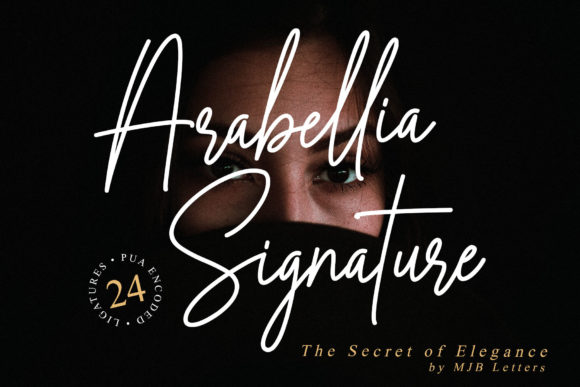
Arabellia Signature Font: Elevate Your Design with Elegance and Sophistication
In the world of typography, fonts play a crucial role in conveying the tone and personality of a brand or design. Among the numerous fonts available, Arabellia Signature Font stands out for its unique and beautiful touch, making it an excellent choice for creating eye-catching logos, branding, and quotes. In this article, we will explore the features and benefits of Arabellia Signature Font, and how it can elevate your design to the next level.
What is Arabellia Signature Font?
Arabellia Signature Font is a lovely and cursive handwritten font, designed to add a touch of elegance and sophistication to any design. Its unique and beautiful touch sets it apart from other fonts, making it an ideal choice for designers, artists, and crafty people who want to create stunning visual content.
What Can You Use Arabellia Signature Font For?
Arabellia Signature Font is a versatile font that can be used for a wide range of design projects, including:
- Logos and Branding: Create a lasting impression with a unique and memorable logo that reflects your brand’s personality.
- Quotes and Posters: Add a touch of elegance and sophistication to your quotes and posters, making them stand out from the crowd.
- Social Media Graphics: Elevate your social media graphics with a font that is both visually appealing and easy to read.
- Wedding and Event Stationery: Add a touch of romance and whimsy to your wedding and event stationery, making it truly unforgettable.
Benefits of Using Arabellia Signature Font
Arabellia Signature Font offers numerous benefits, including:
- Unique and Beautiful Touch: Every letter has a unique and beautiful touch, making your design come alive.
- Elegant and Sophisticated: The font’s elegant and sophisticated style makes it perfect for high-end designs and luxury brands.
- Easy to Read: The font is easy to read, making it perfect for body text and captions.
- Versatile: The font can be used for a wide range of design projects, from logos and branding to quotes and posters.
Tips for Using Arabellia Signature Font
To get the most out of Arabellia Signature Font, here are some design tips to keep in mind:
- Use it as a Headline Font: Use Arabellia Signature Font as a headline font to add a touch of elegance and sophistication to your design.
- Pair it with a Sans-Serif Font: Pair Arabellia Signature Font with a sans-serif font to create a beautiful contrast and add visual interest to your design.
- Experiment with Colors: Experiment with different colors to find the perfect match for your brand or design.
- Use it for Quotes and Captions: Use Arabellia Signature Font for quotes and captions to add a touch of whimsy and romance to your design.
In conclusion, Arabellia Signature Font is a beautiful and elegant font that can elevate your design to the next level. Its unique and beautiful touch, combined with its versatility and ease of use, make it an excellent choice for designers, artists, and crafty people. Whether you’re creating logos and branding, quotes and posters, or social media graphics, Arabellia Signature Font is sure to make your design come alive.